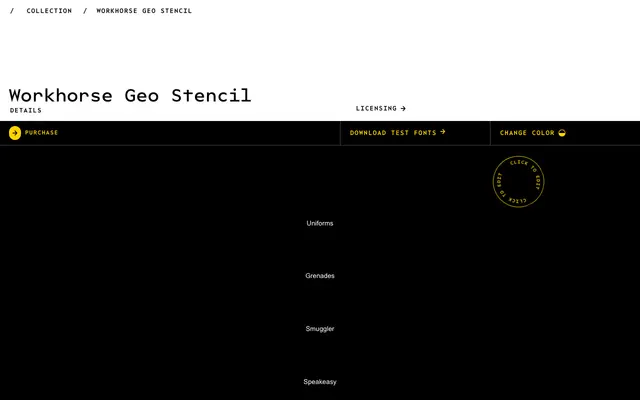
Workhorse Geo Stencil
Workhorse Type Foundry · Adrian Kimball · 2021
A geometric stencil family designed across three optical sizes and eight weights, built to work alongside Workhorse Geometric for mixed display and text use.
Designed by Adrian Kimball in 2021, it addresses a common limitation of stencil typefaces by providing optical sizing across Min, Med and Max grades, making it usable at sizes from small text to large display. The family ships as a variable font with Weight and Optical Size axes, covering 19 static styles and 220-plus languages. A suite of stylistic sets offers alternate characters including flat-sided G, angle-sided M, sheared numerals and a side stencil option.
A geometric sans with stencil cuts across three optical sizes and eight weights; the stencil treatment and display orientation place it firmly in the display category, with geometric construction as its defining subcategory.